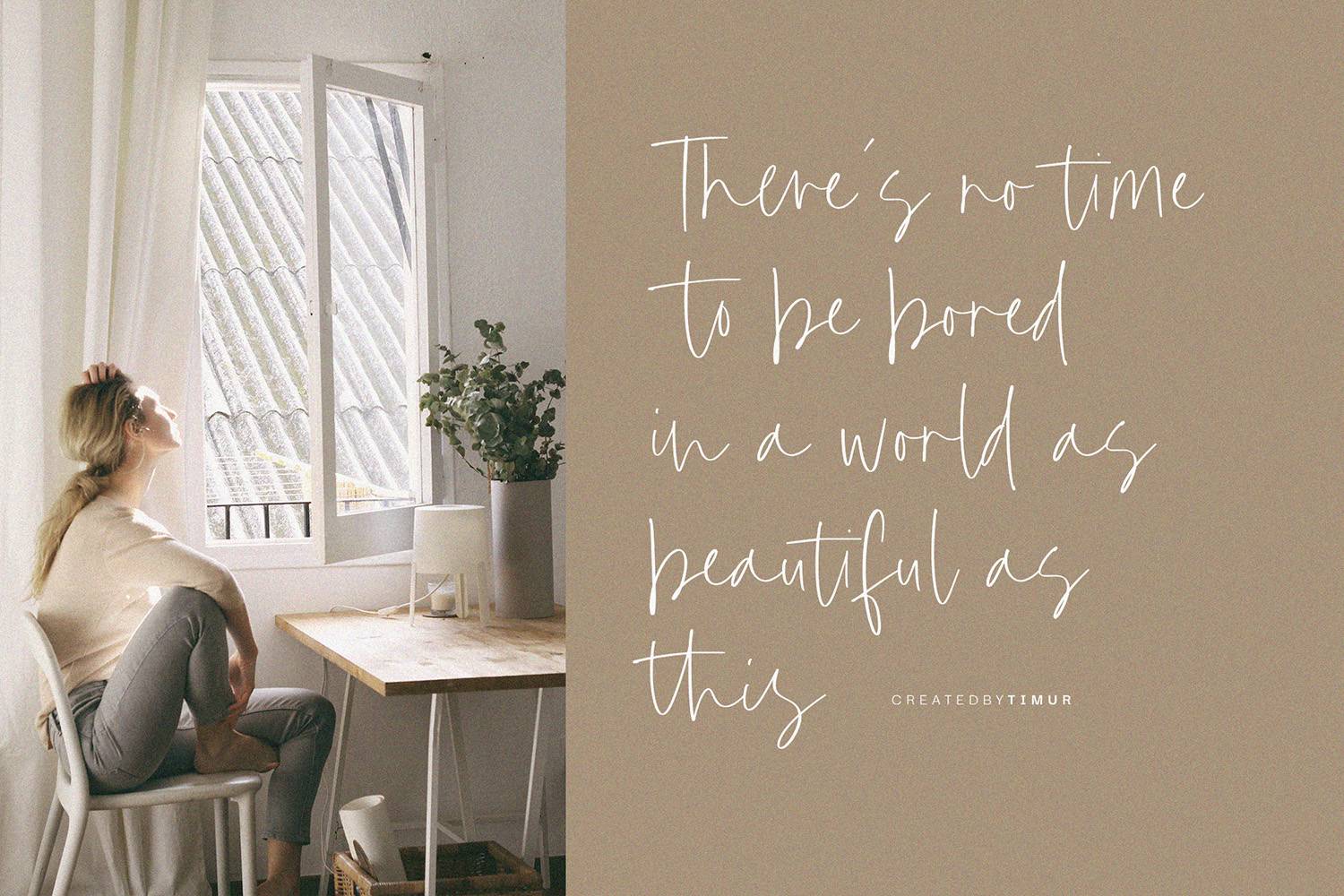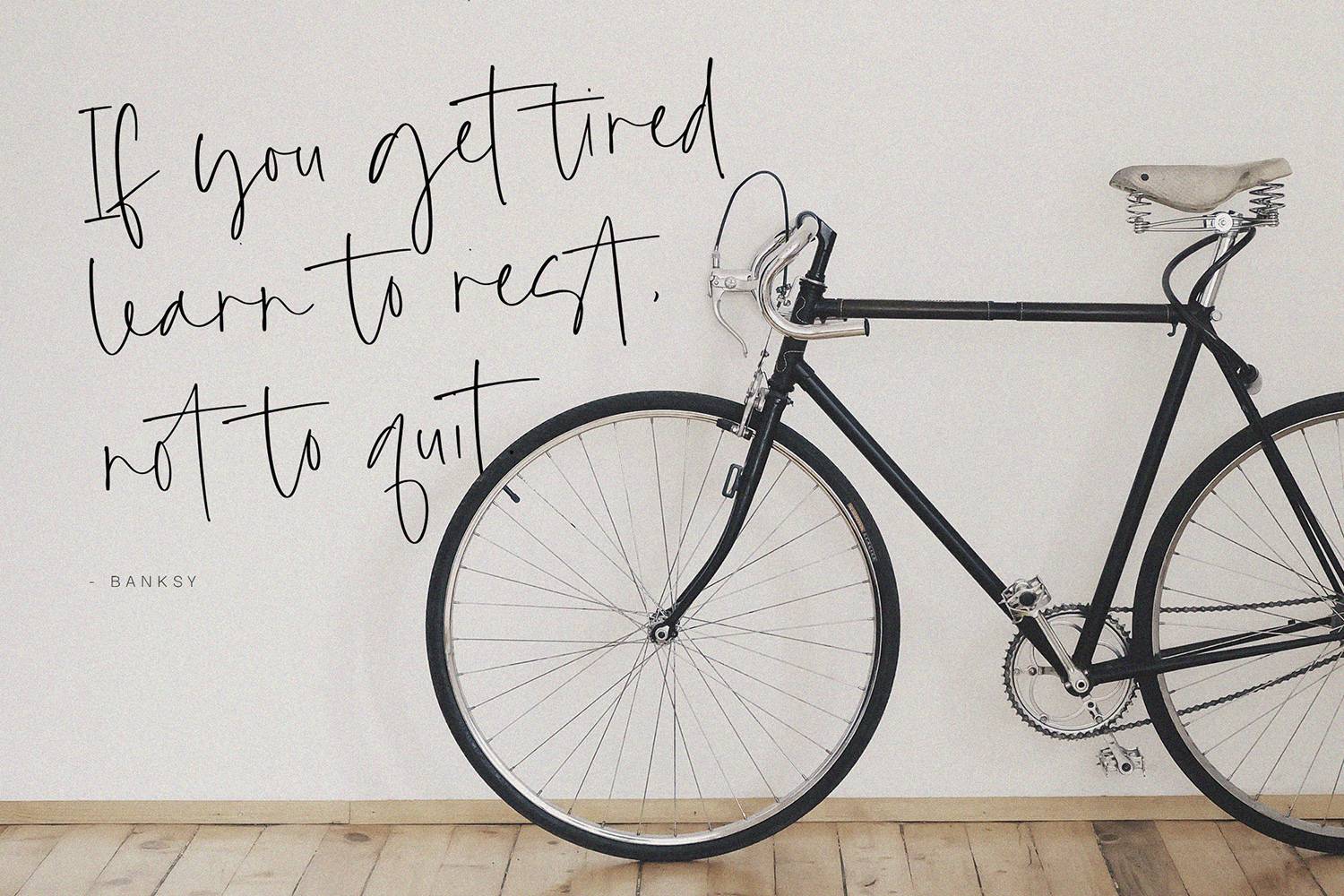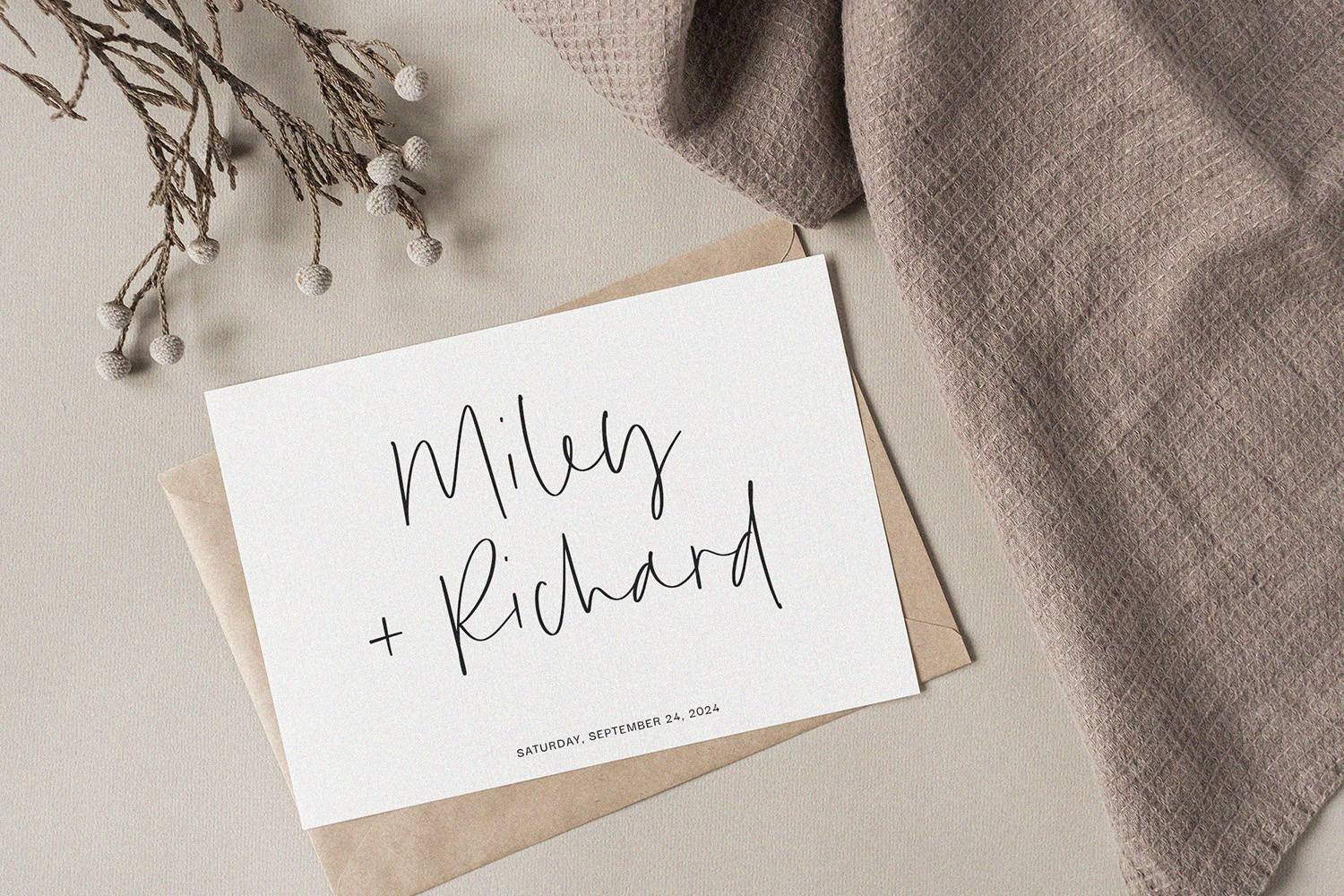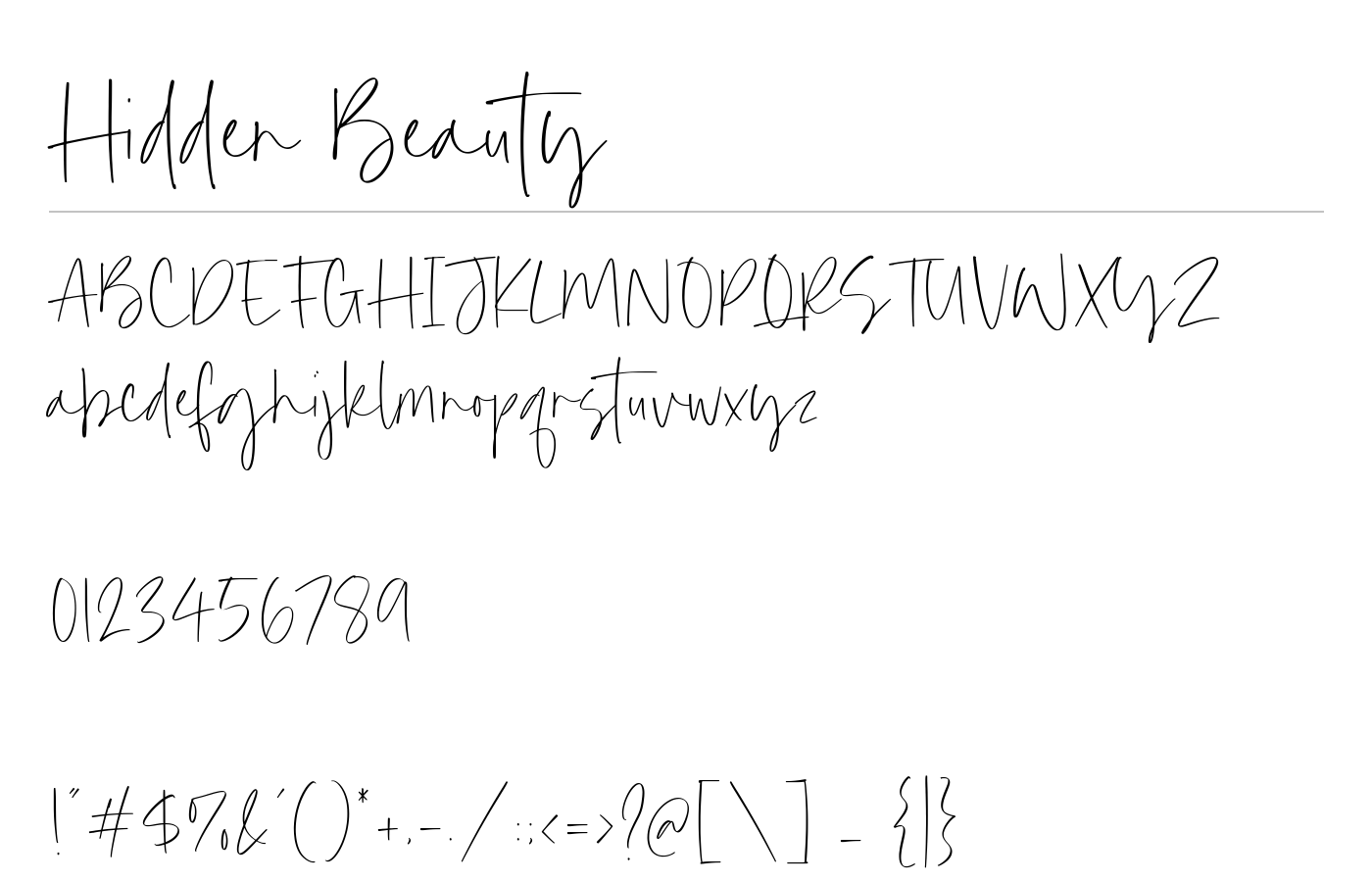
Hidden Beauty is a delicate handwritten script font that features thin, organic strokes with a casual and flowing style. Its tall, slender letterforms with varied line weights give a sense of elegance and personal touch, making it perfect for creative branding, invitations, and feminine design projects where a charming, intimate feel is desired. This font works well in contexts that require a modern, stylish, and approachable look without the heaviness of bold or formal scripts.
Hidden Beauty Font
About Hidden Beauty Font